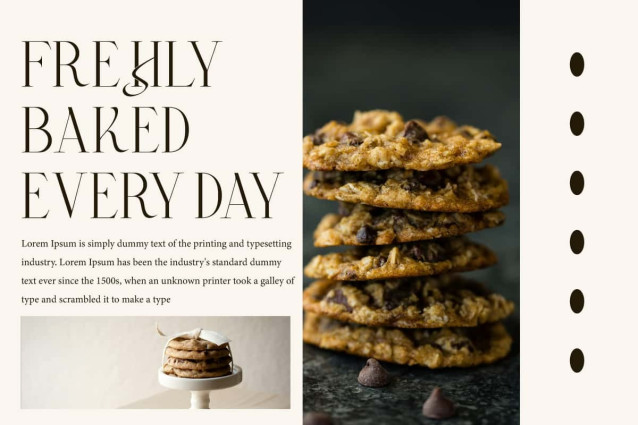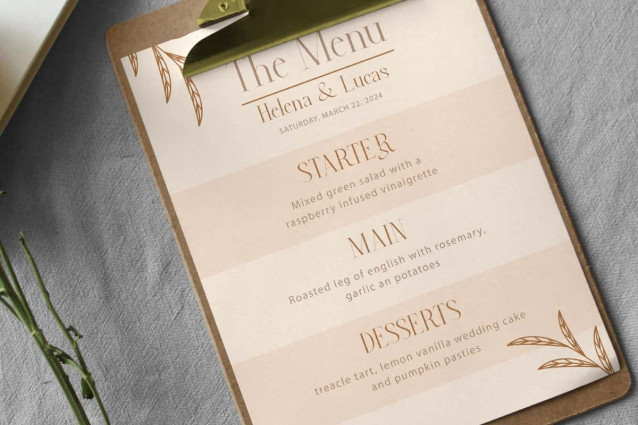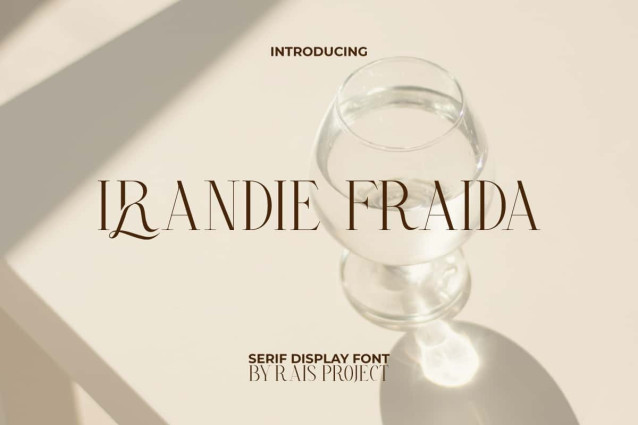
Irlandie Fraida Font
Irlandie Fraida Font is an aesthetic serif display font hat has a luxurious touch by RaisProject. This font can provide a clean and luxurious look at a glance without making the design look busy. It will look good on invitation, stationery, poster, custom design, product packaging, quotes, signage, brand image, advertisement, label, marketing material, website page, and more!
Irlandie Fraida Font includes a full set of ALL CAPS for Uppercase and Lowercase Letters, Numerals, large range of Punctuation, and Ligature character. This beautiful font will be suitable for various industries, such as fashion, jewelry, cafe, event or wedding organizer, photography, printing, publishing, etc.